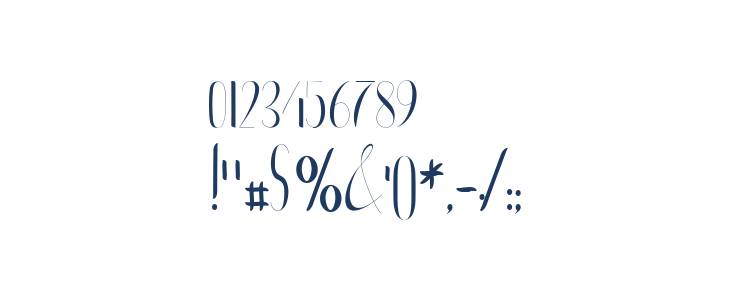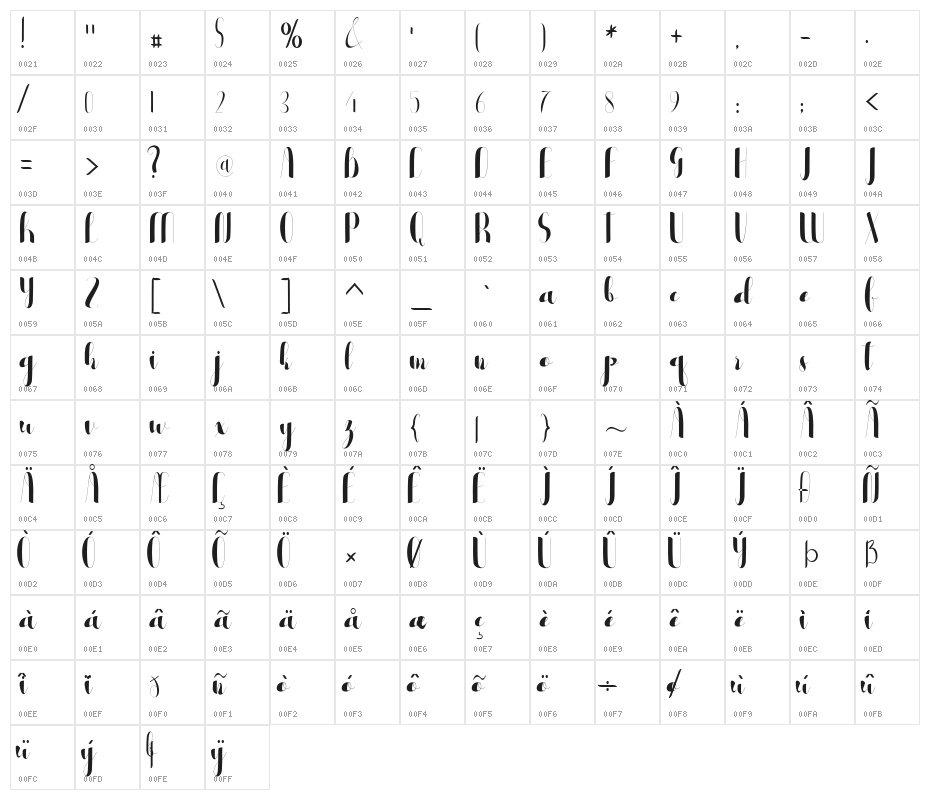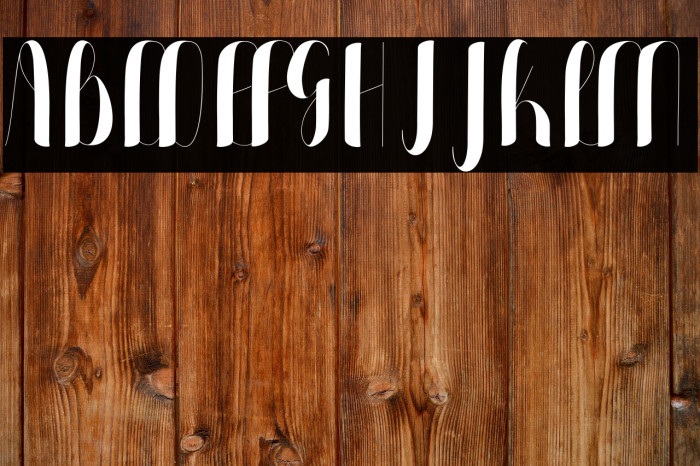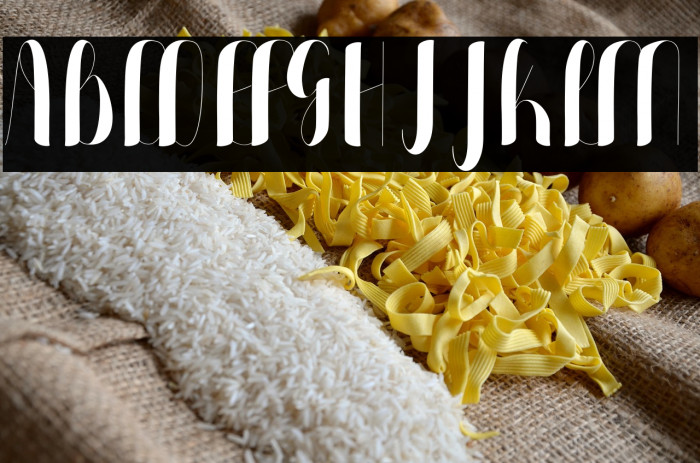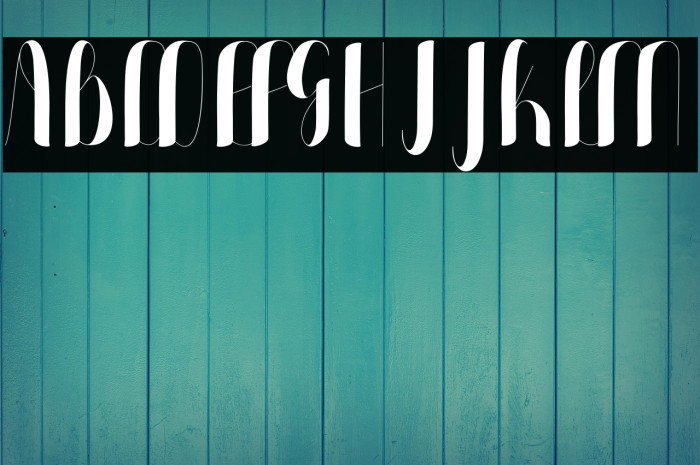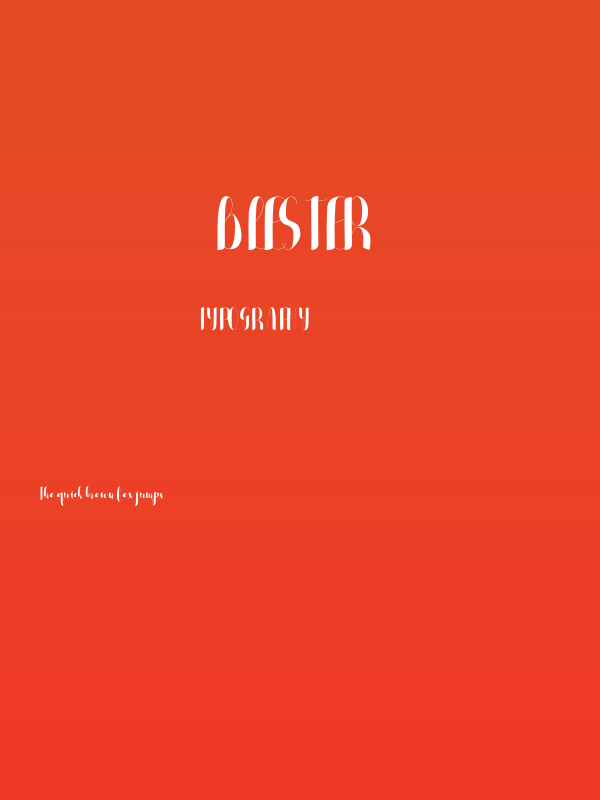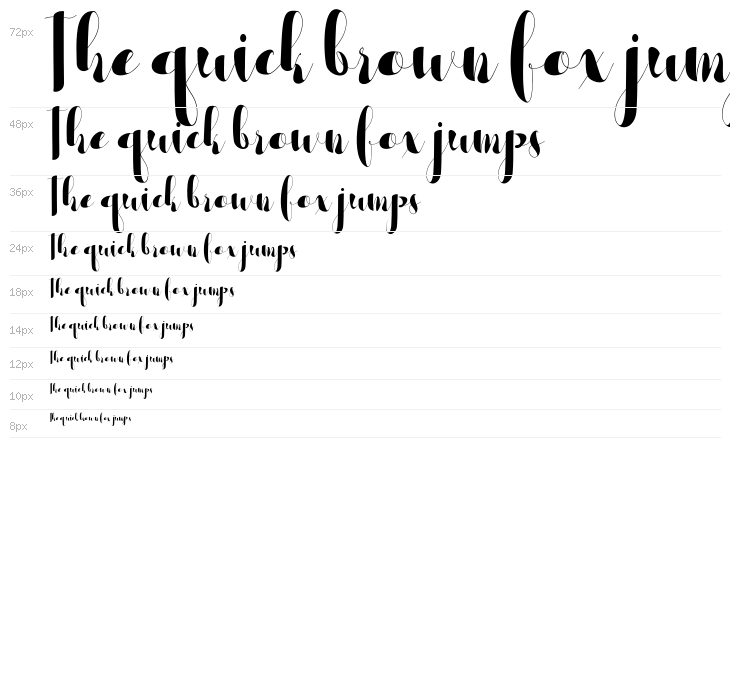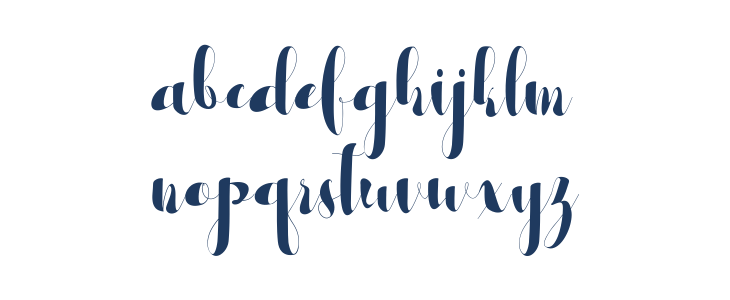
blester Font
blester Description
This font exhibits a striking contrast between thick and thin strokes, creating an elegant and sophisticated appearance. The uppercase letters are tall and narrow, with a graceful flow that suggests a sense of movement. The lowercase letters maintain a consistent style, with some characters featuring unique loops and curves that add a touch of whimsy. The numerals are slender and align well with the overall aesthetic, while the special characters are designed to complement the letterforms seamlessly. This font's distinctive style makes it suitable for artistic and expressive design projects.